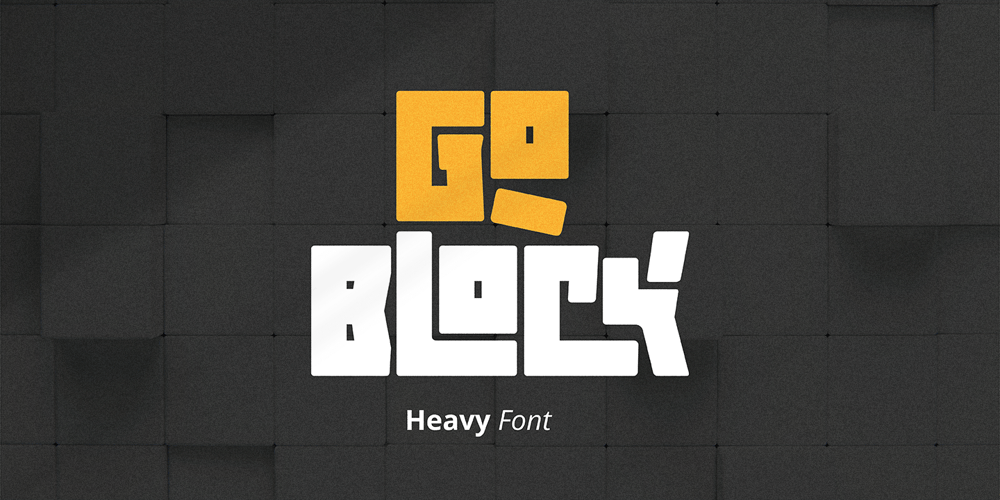
Goblock Font Family was designed by Jarnawi Saja and published by Grontype. Goblock contains 1 styles and family package options. Introducing Goblock โ a powerhouse of typography designed to make your brand stand out with unparalleled strength and presence. This heavy and extra-bold font is meticulously crafted to elevate your logo to new heights, leaving a lasting impression on your audience.Goblock commands attention with its bold strokes and robust characters, creating a visual impact that is both striking and memorable. The thick, weighty letterforms exude confidence and solidity, making it the perfect choice for brands that want to convey strength, authority, and a bold identity.Whether you’re in the business of technology, finance, or any industry that demands a strong visual identity, Goblock is your go-to choice for making a bold statement. Elevate your brand’s recognition and leave an indelible mark with the Goblock font โ where power meets precision in every letterform.Features: Block and Bold Uppercase & Lowercase Basic Latin Glyphs Multilingual Support Numeral and Punctuation Ligatures & Alternates Thankyou for picking up this font, hope you enjoy it.Regard. Grontype